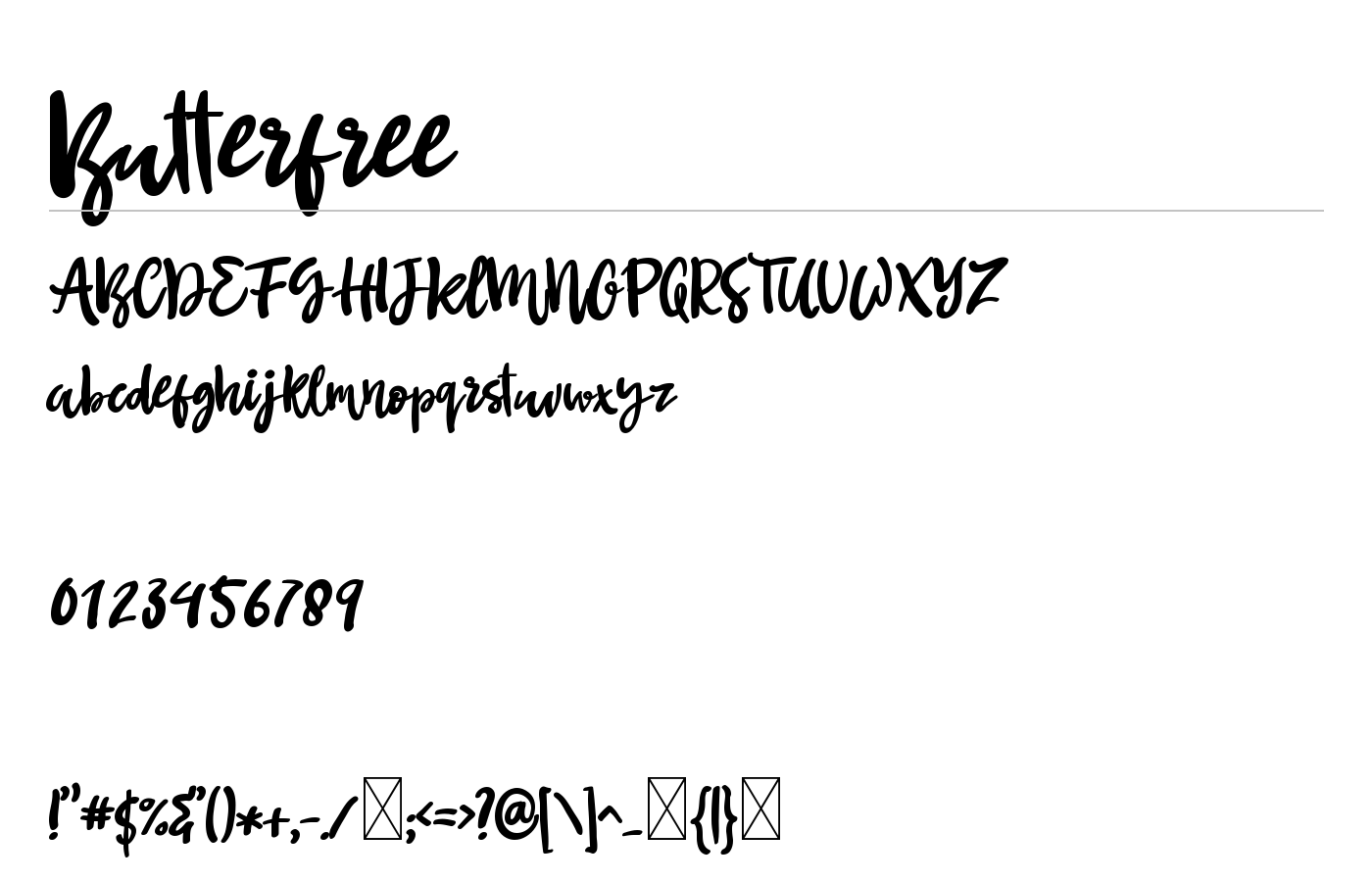
Butterfree is a lively and playful script font featuring bold, hand-drawn strokes with a casual, brush-like texture. Its slightly condensed letterforms and energetic style make it perfect for creative projects, branding, packaging, and headlines that want to convey warmth and friendliness. This font works well in designs that seek a personal, approachable, and artistic vibe.
Butterfree Font